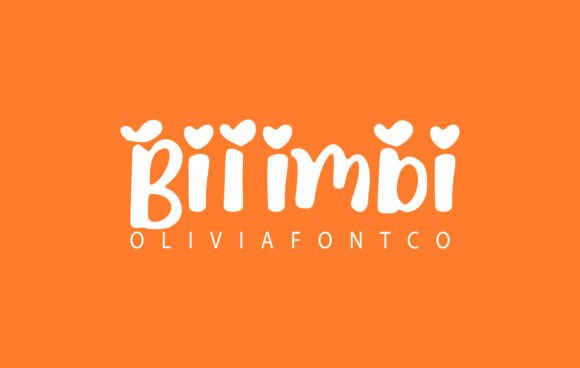
The Bilimbi Font: A Romantic Touch for Your Creative Projects
I’ll never forget the time I was working on a wedding invitation design project, and my client asked for a font that was both elegant and playful. I scoured the internet, trying out font after font, but nothing seemed quite right. That was until I stumbled upon the Bilimbi font. With its romantic touch and authentic handwritten feel, it was love at first sight! In this article, I’ll share my experience with the Bilimbi font, its features, and how to make the most of it in your creative projects.
An Honest Review of Bilimbi Font
• ✨ Legibility: The Bilimbi font is incredibly easy to read, making it perfect for both title and body text.
• ✅ Romantic Touch: The font’s handwritten feel adds a touch of warmth and personality to any design.
• 💕 Versatility: From magazine headlines to social media graphics, wedding invitations, and more, Bilimbi font is a versatile choice that can elevate any design.
While the Bilimbi font is amazing, there are a few things to keep in mind:
• 🤔 Limited use of all-caps: While the font looks great in upper case, it’s not as visually appealing as its lower-case counterpart.
• ⚠️ Glyph limitations: As with any font, there may be limitations to the number of glyphs available, which could impact its use in certain languages or design applications.
A Practical Guide to Using Bilimbi Font
3. Experiment with OpenType features, such as Stylistic Alternates, to add more personality to your design.
The Designer Inspiration Behind Bilimbi Font
The Bilimbi font was designed with the intention of capturing the essence of handwritten writing. The designer, inspired by the beauty of authentic handwritten scripts, set out to create a font that would bring a touch of romance and elegance to any design. With its unique blend of playfulness and sophistication, the Bilimbi font is sure to become a favorite among designers and crafters alike.
Q: What is the Bilimbi font best suited for?
A: The Bilimbi font is perfect for a variety of design applications, including magazine headlines, social media graphics, wedding invitations, and more.
Q: Is the Bilimbi font easy to read?
A: Absolutely! The Bilimbi font is designed to be highly legible, making it perfect for both title and body text.
Q: Can I use the Bilimbi font in multiple languages?
A: While the Bilimbi font may support multiple languages, it’s essential to check the font’s glyph set and language support to ensure it meets your needs.